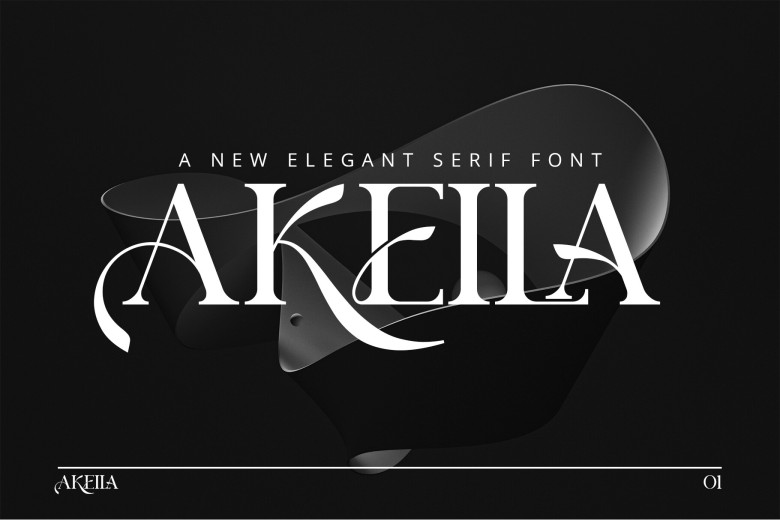
Akeila Font
Akeila Serif is a well-balanced serif font with sleek lines that is elegant yet fashionable, perfect for design ideas such as invitation cards, corporate logos movies titles books business cards titles brands and other uses. His stunning personality lends it great versatility for use in designs for invitation cards corporate logos movies movie titles books business cards titles brands and many other uses.
Akeila Serif exemplifies class with its delicate alternations and ligature patterns making him the ideal partner in any project.
Akeila Serif Font